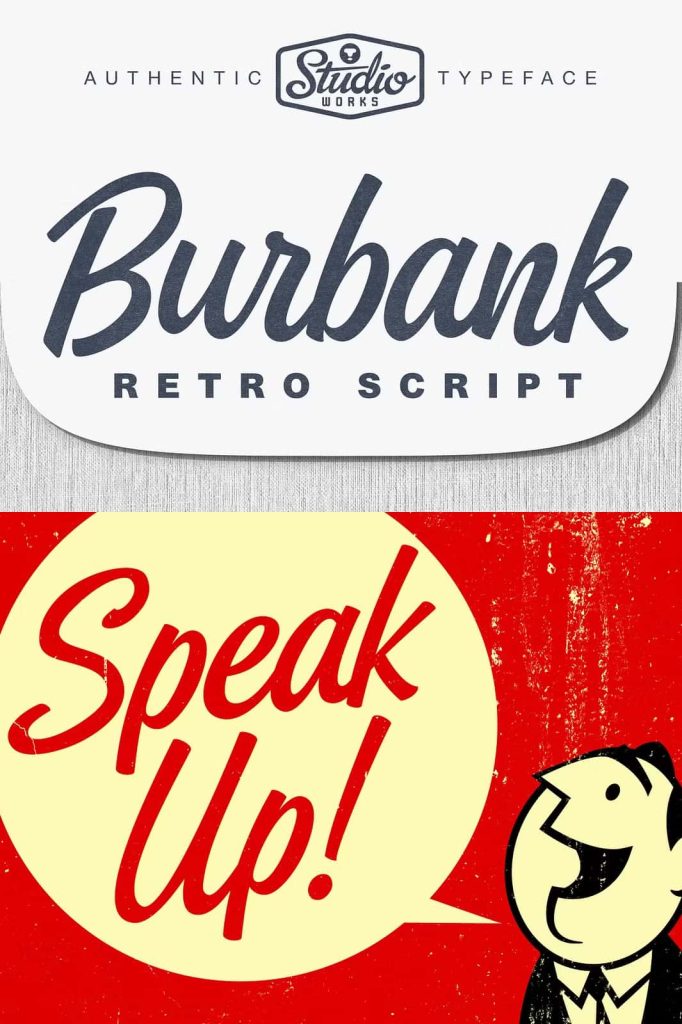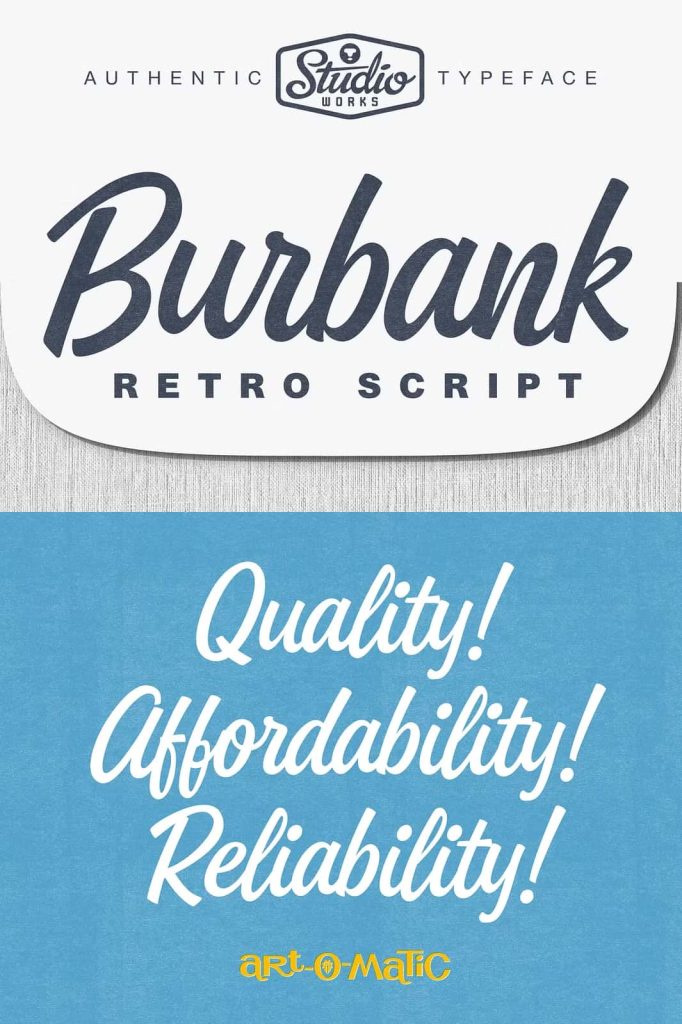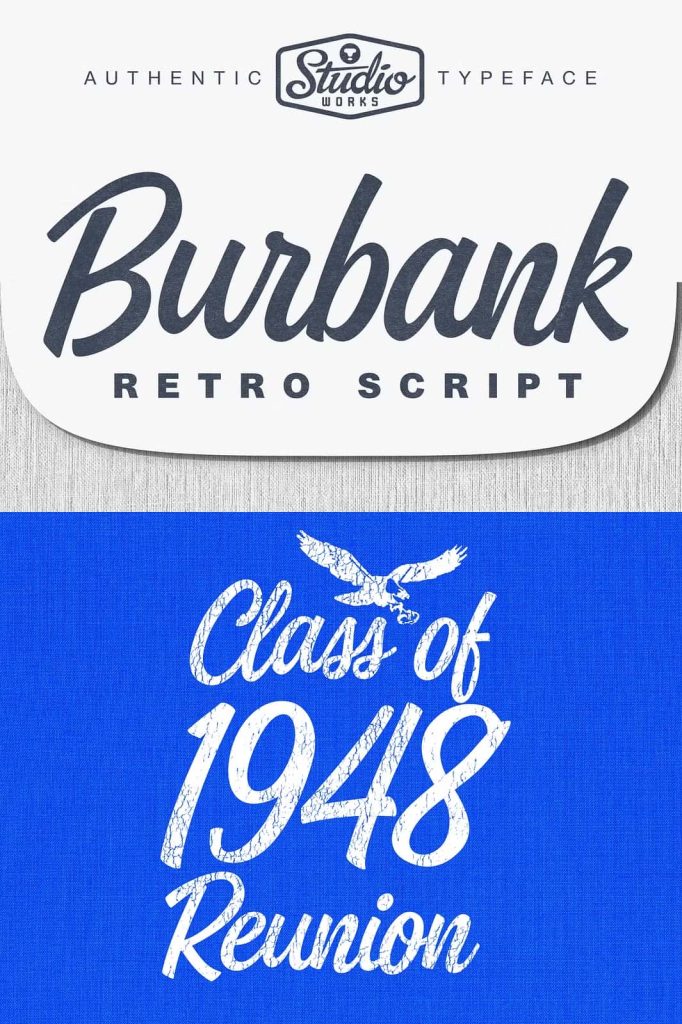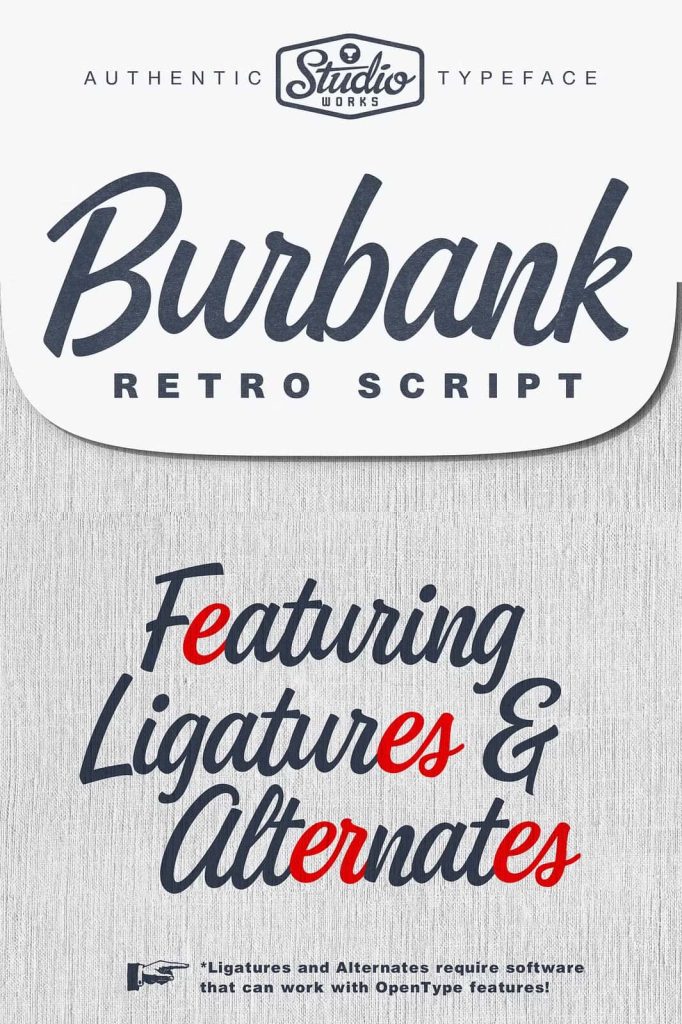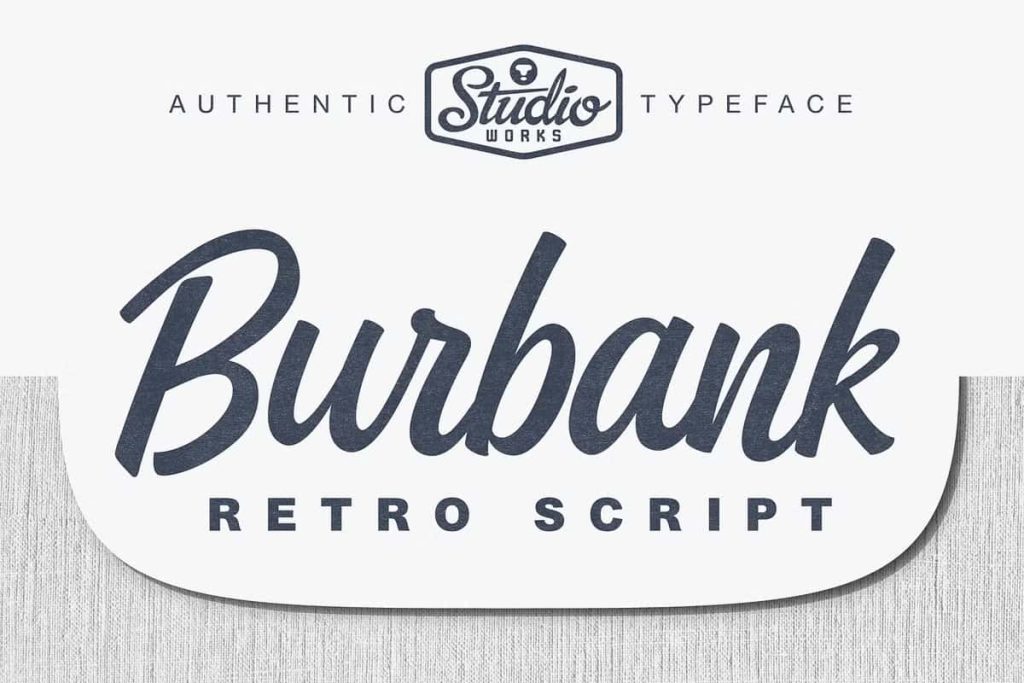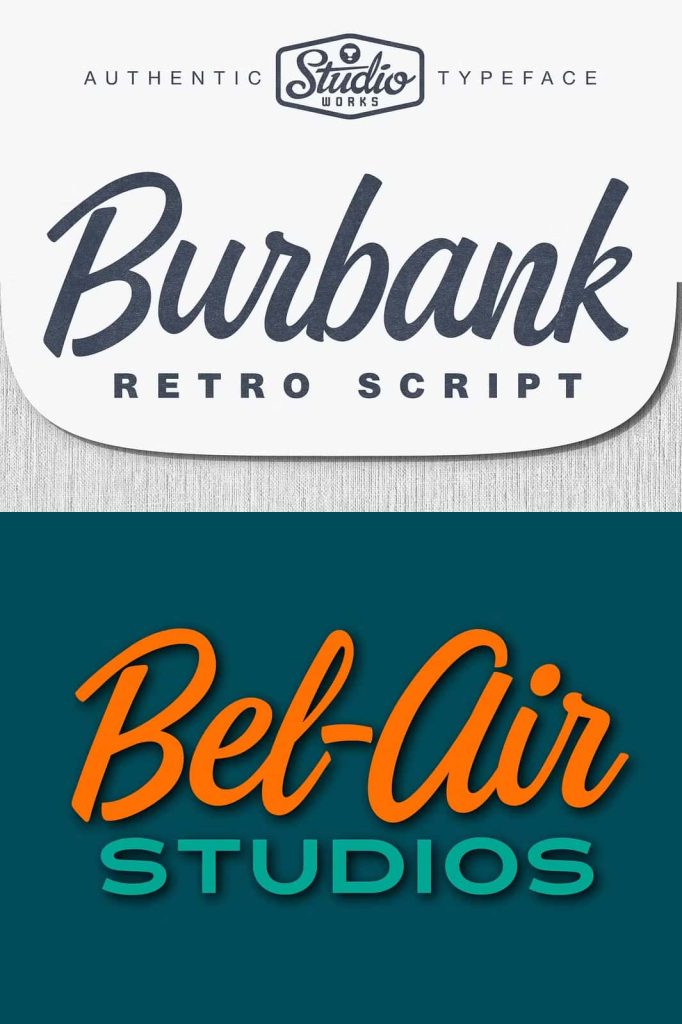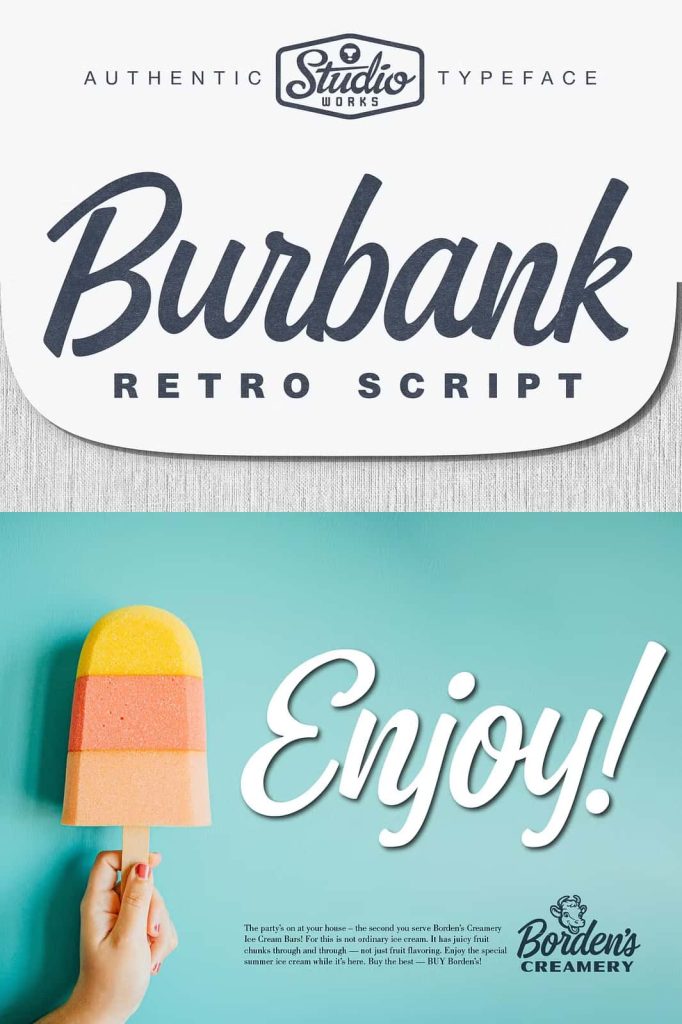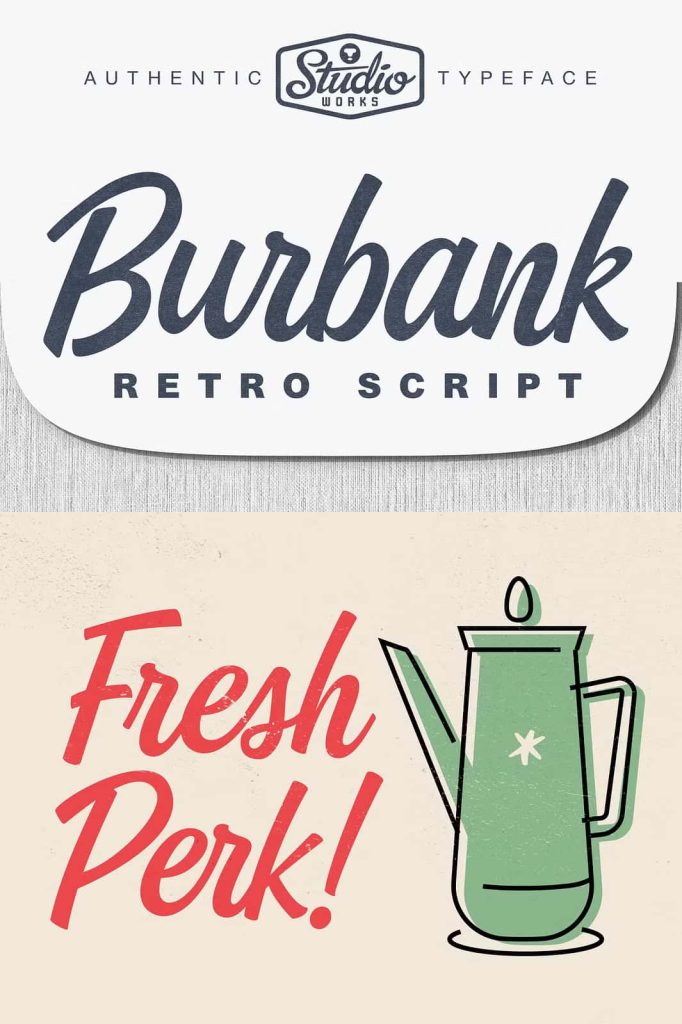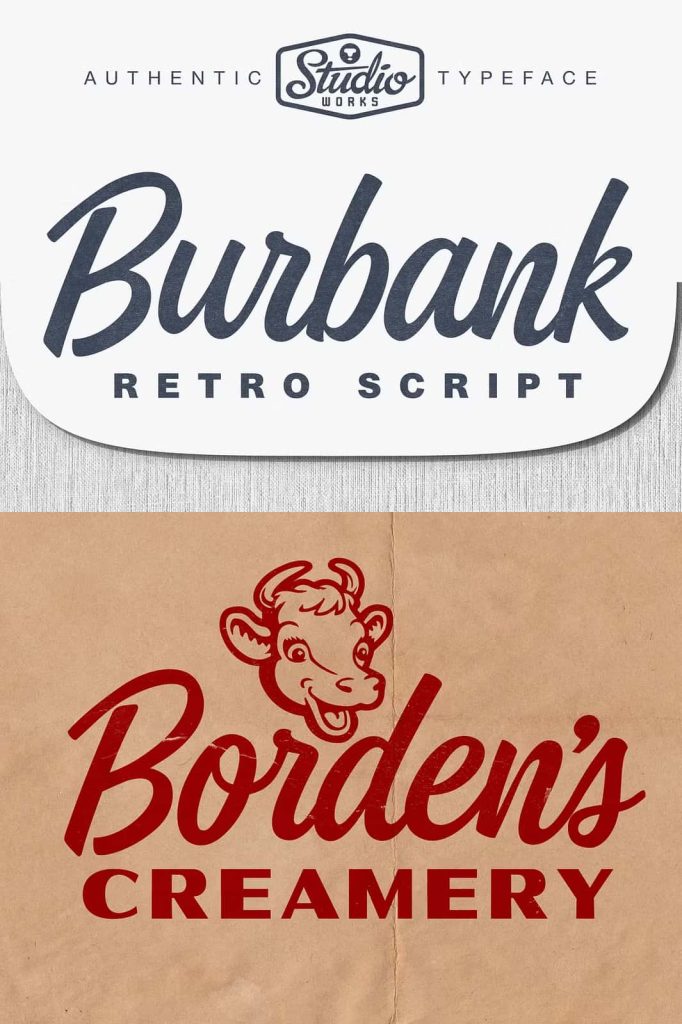
Burbank Retro Script Typeface
Burbank is a commercially elegant retro script typeface inspired by the handcrafted lino-cut lettering found in classic mid-century advertising. Designed to command attention while maintaining exceptional readability, Burbank combines vintage charm with professional versatility, making it an excellent choice for branding, advertising, editorial design, and premium display typography.
With expressive connected letterforms, bold capital letters, and beautifully balanced lowercase characters, Burbank captures the timeless personality of vintage sign painting and classic commercial artwork. Every letter has been carefully crafted to create a sophisticated script that feels authentic, energetic, and highly functional across modern creative projects.
Whether you’re designing an eye-catching logo, building a memorable brand identity, creating promotional materials, or producing stylish packaging, Burbank delivers the nostalgic character and commercial appeal needed to make every design stand out.
Inspired by Mid-Century Advertising
Burbank draws inspiration from the golden era of advertising when handcrafted typography dominated storefronts, magazine advertisements, product packaging, and promotional posters. During the mid-century period, designers relied on expressive lettering to communicate confidence, quality, and personality, and Burbank successfully brings that same timeless aesthetic into contemporary design.
The typeface embraces the beauty of hand-cut lino script lettering while refining it for today’s creative professionals. The result is a font that feels nostalgic without appearing outdated, allowing designers to blend vintage character with modern design trends.
This unique combination makes Burbank suitable for projects that require authenticity, elegance, and lasting visual appeal.
Expressive Connected Letterforms
One of Burbank’s defining characteristics is its beautifully connected script style. Every letter flows naturally into the next, creating smooth, elegant typography that feels handwritten yet professionally refined.
The flowing connections give headlines and logos a sense of movement and rhythm while maintaining outstanding readability. This handcrafted appearance allows brands to establish a more personal relationship with their audience while preserving a polished and professional image.
The expressive nature of the script makes Burbank especially effective for large display applications where typography becomes the primary visual element.
Powerful Capitals with Dynamic Lowercase Letters
Burbank features bold, confident capital letters that immediately attract attention. These striking uppercase characters work together with slightly elevated lowercase baselines to create a dynamic visual structure that naturally guides the viewer’s eye across the design.
This thoughtful construction adds energy and personality without overwhelming the composition. The contrast between the powerful capitals and flowing lowercase letters creates typography that feels balanced, stylish, and highly memorable.
Whether used in advertising headlines or elegant wordmarks, this combination ensures that every message communicates with clarity and confidence.
Stylistic Alternates and Contextual Ligatures
Burbank includes a rich collection of OpenType features that provide designers with additional creative flexibility. Stylistic alternates and contextual ligatures allow you to customize letter combinations and create unique typography without manually editing each character.
These intelligent features produce more natural connections between letters, improving both visual flow and overall appearance. Designers can experiment with different combinations to create logos, branding, and headlines that feel truly custom.
Instead of settling for standard typography, Burbank encourages creativity while helping maintain consistency throughout every design project.
Perfect for Branding and Advertising
Burbank has been designed specifically for commercial applications where strong typography plays an essential role. Its bold personality and vintage elegance help businesses establish memorable branding that captures attention across both print and digital media.
This typeface works beautifully for:
- Business logos
- Brand identities
- Vintage packaging
- Advertising campaigns
- Magazine headlines
- Product labels
- Restaurant branding
- Café menus
- Craft beverage labels
- Merchandise designs
- T-shirt graphics
- Promotional posters
- Editorial layouts
- Book covers
- Website headers
- YouTube thumbnails
- Signage
- Retail displays
- Creative portfolios
Versatile Across Creative Industries
Although inspired by classic commercial lettering, Burbank adapts effortlessly to many different design styles and industries. Its refined retro appearance complements vintage branding, artisan products, fashion labels, food packaging, hospitality businesses, lifestyle brands, and creative agencies.
If you’re looking for a retro script font that delivers commercial elegance, handcrafted personality, and professional performance, Burbank is an outstanding addition to your typography library. Its timeless style helps transform ordinary designs into memorable visual experiences that communicate confidence, creativity, and authenticity.